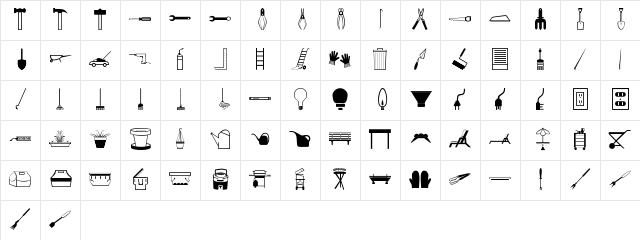
Tools Regular Free Font
Tools Regular
Tools Family
Tools Regular
Design Context for Tools
Tools is a composed and adaptable typeface that performs quietly and consistently across a wide range of design contexts.